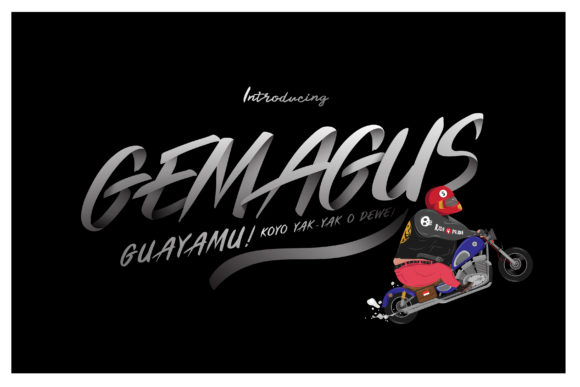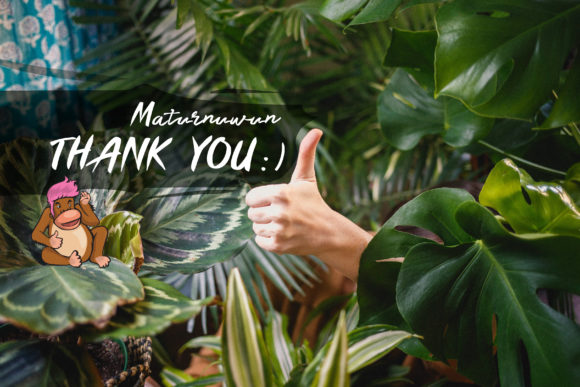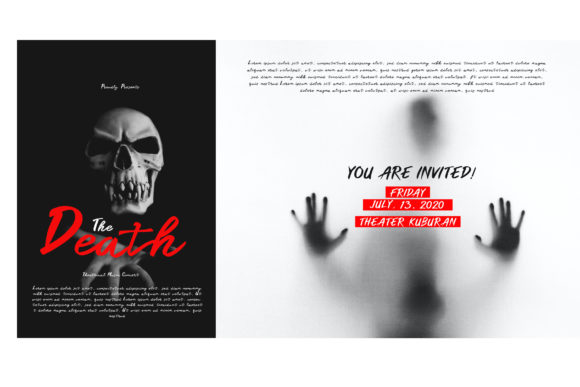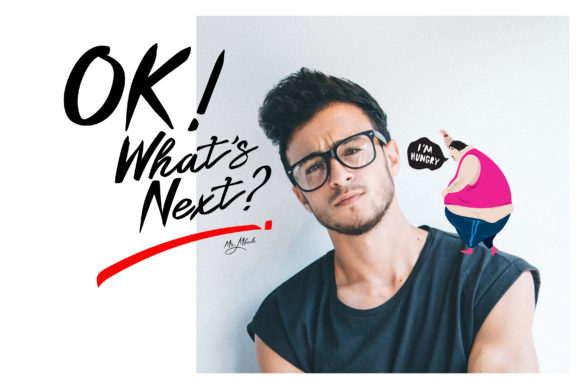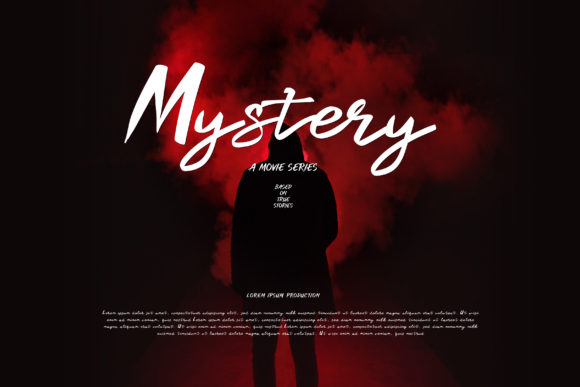
Gemagus Font
About Gemagus Font
Gemagus is strong handwritten font. Its casual charm makes it appear wonderfully down-to-earth, readable and, ultimately, incredibly versatile. Gemagus will look outstanding in any context, whether it’s being used on busy backgrounds or as a standalone headline!